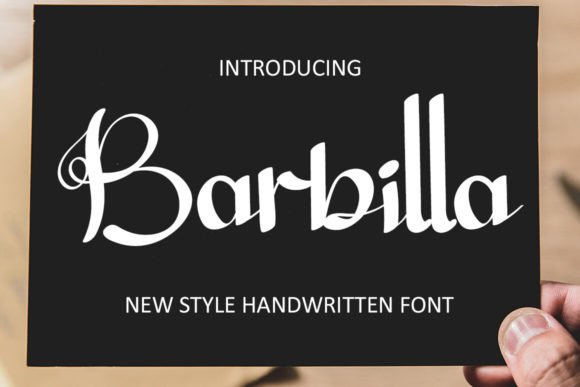
Introducing Barbilla, the script font that will captivate your audience and leave them in awe. Its elegant curves and intricate details exude luxury and refinement, making it the perfect choice for designs that demand attention. Whether you're creating Christmas letters, invitations, or social media posts, Barbilla will make your words shine.
With Barbilla, you'll have a font that's not just beautiful, but also incredibly versatile. Its graceful flowing lines lend themselves to a wide range of design projects. From elegant wedding invitations to eye-catching posters, Barbilla will make your designs stand out from the crowd.
**Key features of Barbilla:**
* Elegant and refined script font
* Perfect for Christmas letters, invitations, and social media posts
* Incredibly versatile and easy to use
* Captivating and luxurious design